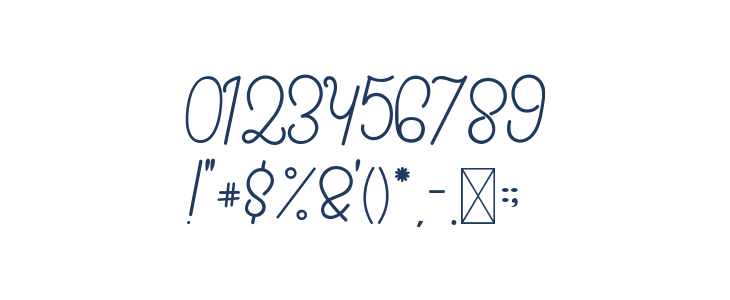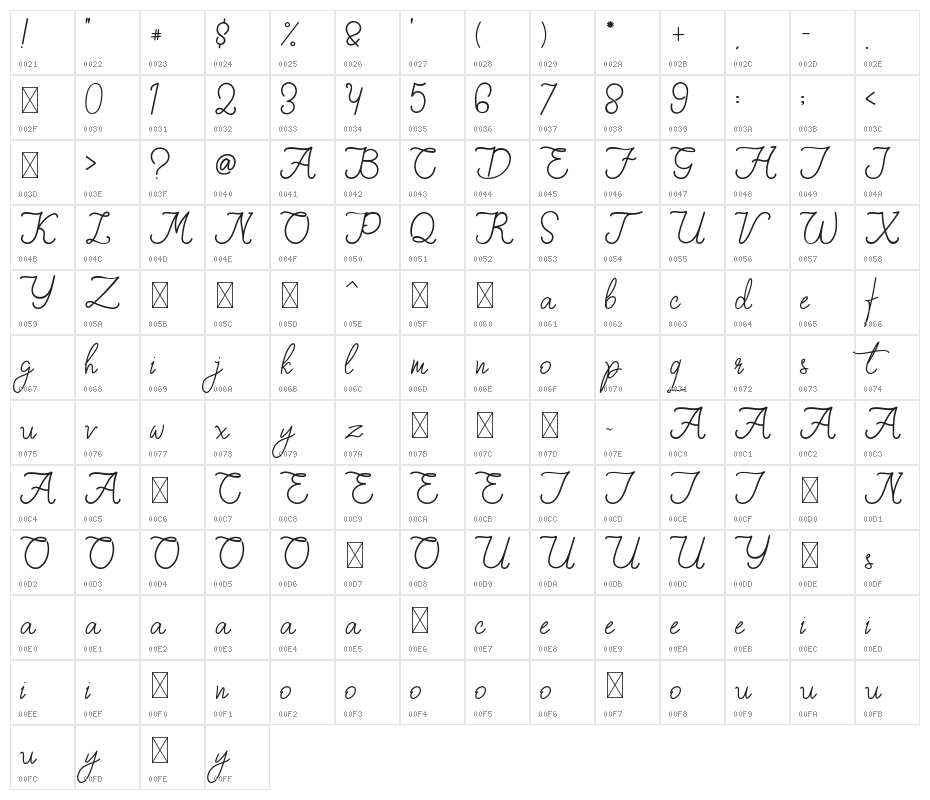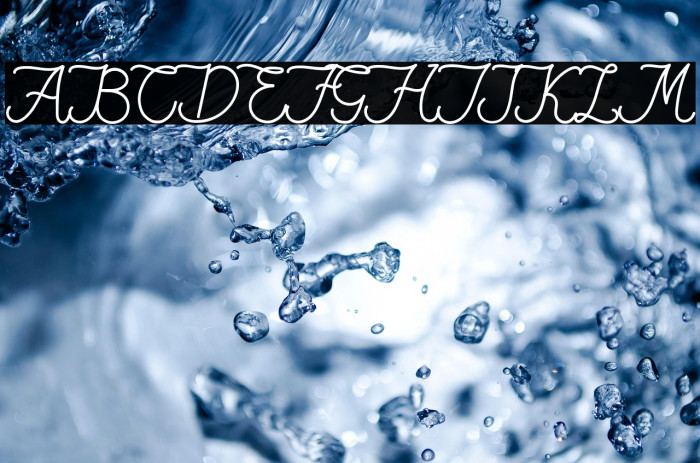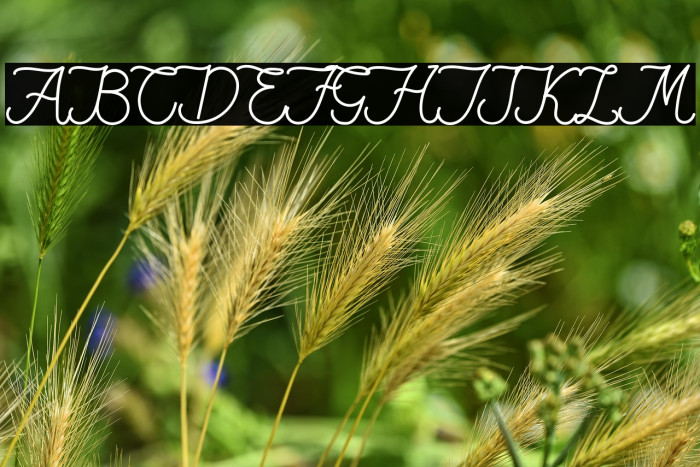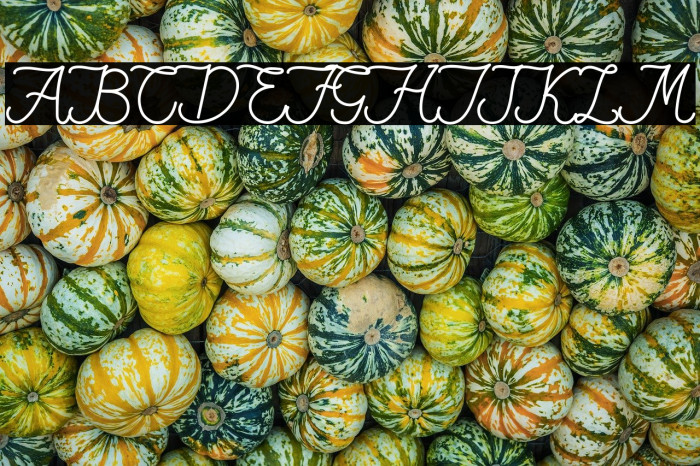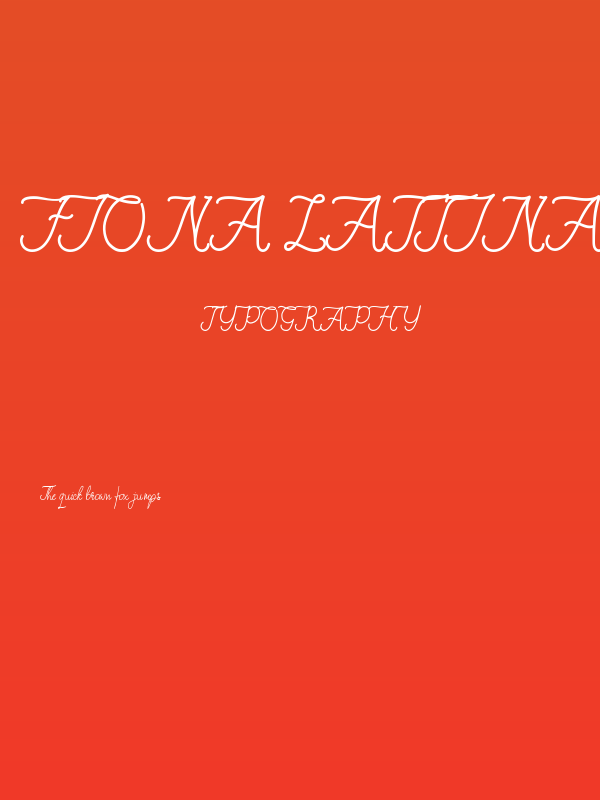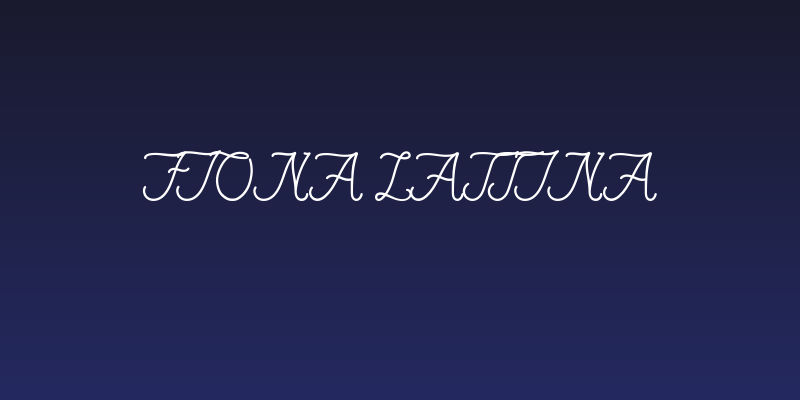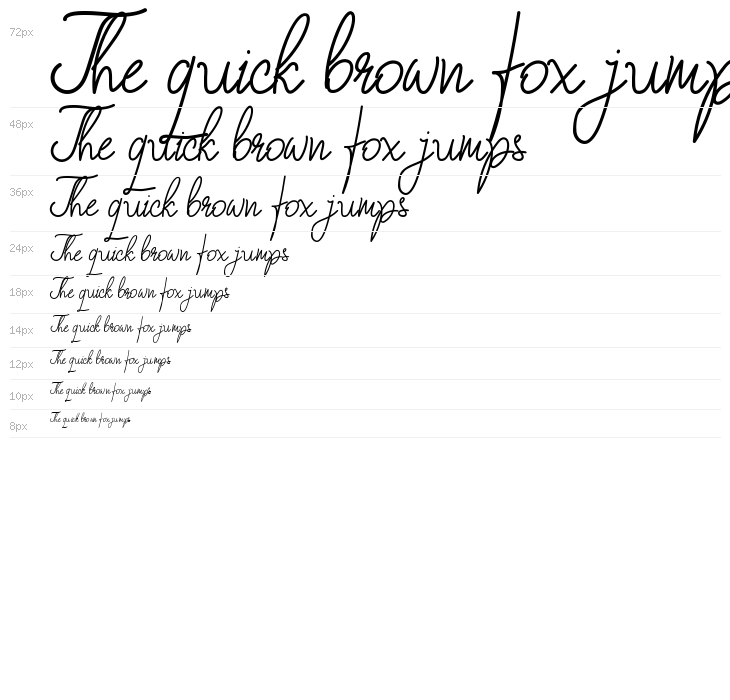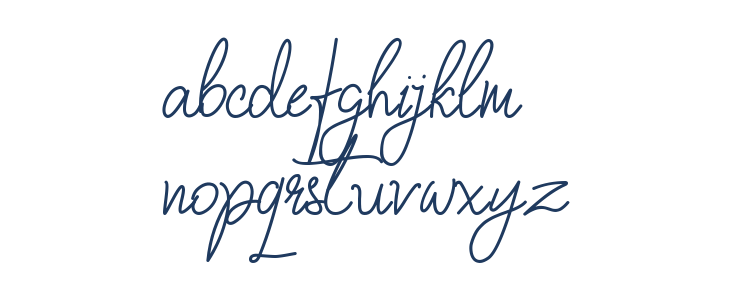
Fiona Lattina Font
Fiona Lattina Description
This font exudes a graceful and fluid style, characterized by its elegant cursive script. The uppercase letters are designed with smooth, flowing lines that connect seamlessly, giving a sense of continuity and sophistication. The lowercase letters maintain a similar fluidity, with some characters featuring distinctive loops and swirls that add a touch of flair. The numerals are clear and legible, maintaining the same cursive style, which ensures consistency throughout the font. Special characters are thoughtfully integrated, matching the overall aesthetic. This font is perfect for projects that require a personal, handwritten touch, such as invitations, greeting cards, or branding materials.
| Overall Style | Elegant, Handwritten |
| Use Case | Headlines, Invitations, Personal Branding |
| Proposed Projects | Ideal for wedding invitations, greeting cards, personal branding, and elegant signage. |